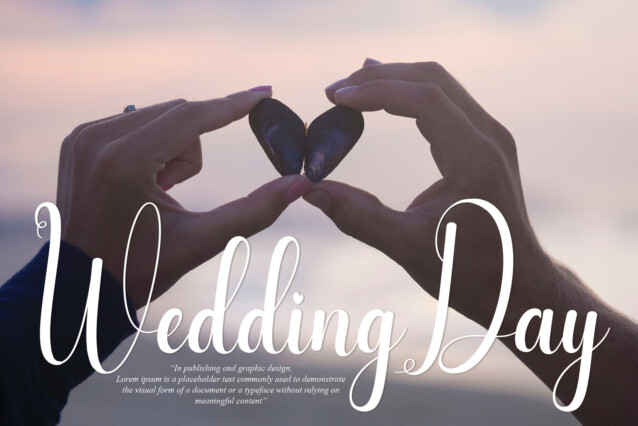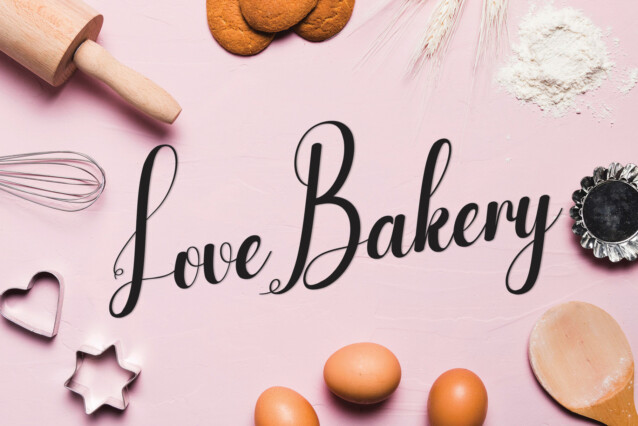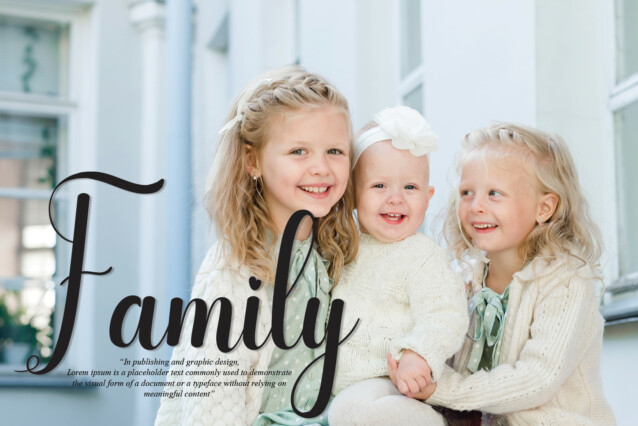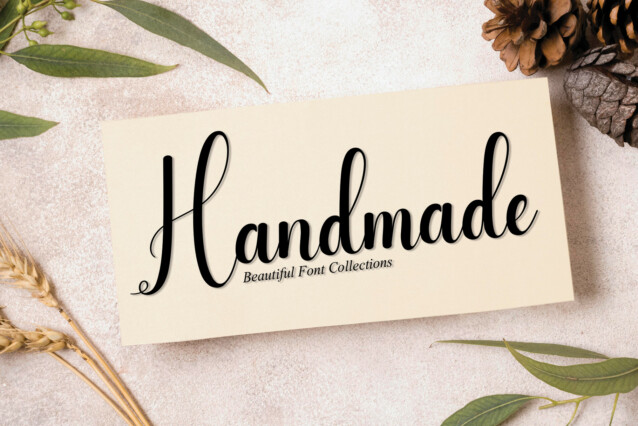
Milkday Script Typeface
Milkday Script Typeface feels equally charming and elegant. It looks stunning on wedding invitations, thank you cards, quotes, greeting cards, logos, business cards and every other design which needs a handwritten touch